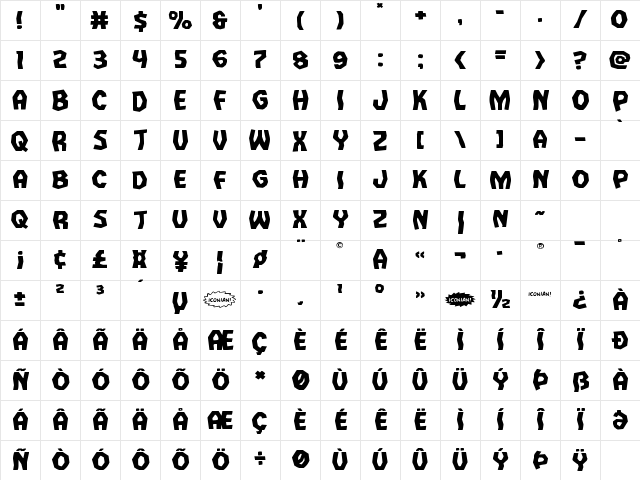
Vampire Bride Expanded Free Font
Vampire Bride Expanded Expanded
Style: Expanded
Design Context for Vampire Bride Expanded
Vampire Bride Expanded is a composed and adaptable typeface that performs quietly and consistently across a wide range of design contexts.